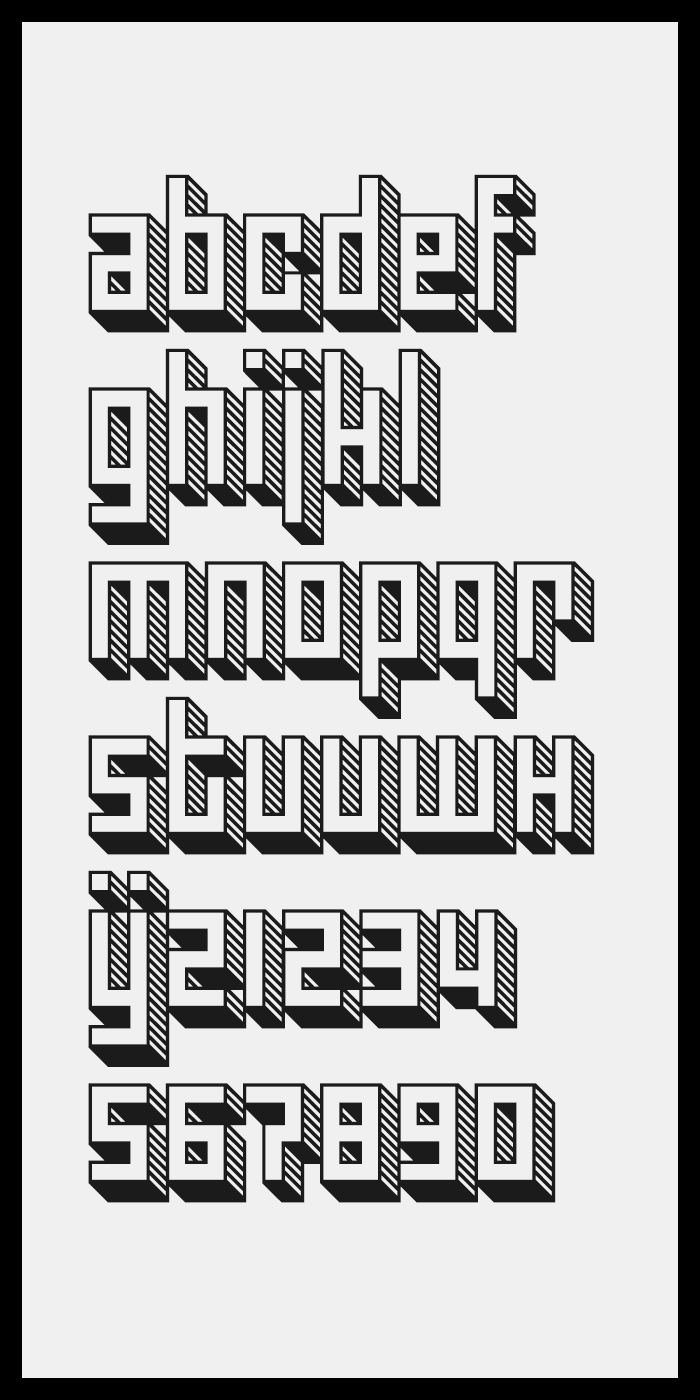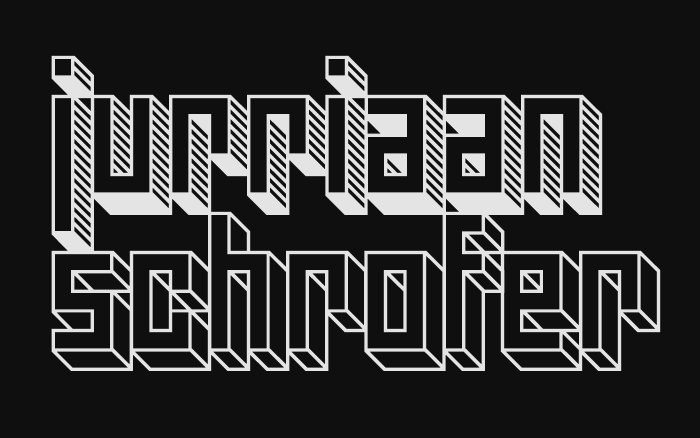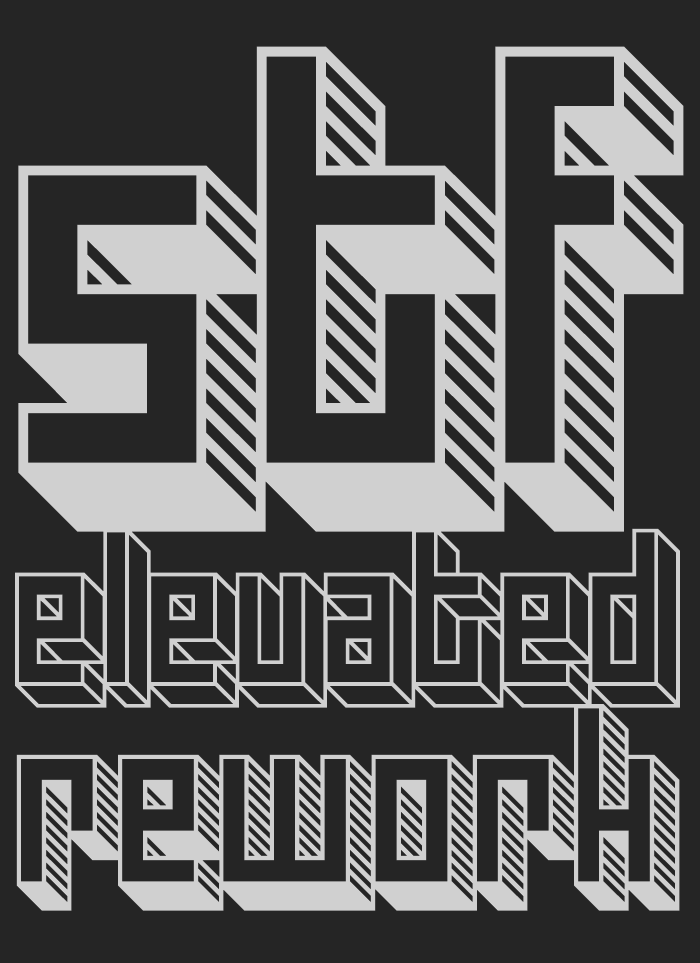
ELEVATED (REWORK) - A 3D outline display typeface design with shadow effect.
It's inspired by the lettering from a sketch by great Dutch graphical designer "Jurriaan Schrofer".
This re-work differs from Jurriaan's original sketch and my previous versions.
I changed the size to grid ratio, drastically reducing overall glyph size and increase stroke weight. The changes are optimizing the design, making it more suitable for digital display use. (more accurate 'print' version forthcoming).
Due to the inexperience I had in my early days of FontStructing, and the lack of proper knowledge about raster scaling, I faced some serious issues regarding the correct size distribution. This made it impossible to include the diagonal lines correctly into that old version of the font, with the diagonals also having equal seporation and white space throughout the entire design.
So instead of making a clone of my previously published version "STF_ELEVATED" in order to include the shadow style variation into that existing family as a seporate FontStruction (like I did with most other style variations in my "LETTERS OP MAAT" series), for this one I decided to rebuild the entire typeface from scratch.
Putting all the style variations together into this single re-worked design.
Some extra characters were added to the set, making it a slightly more functional basic font.
The shadow effect is the default style for this font, this also includes all numerals, punctuation marks and other symbols that make up the full font, these occupy the uppercase. The outline style A-Z glyphs occupy the lowercase.
U = V
change the x to not make it an h